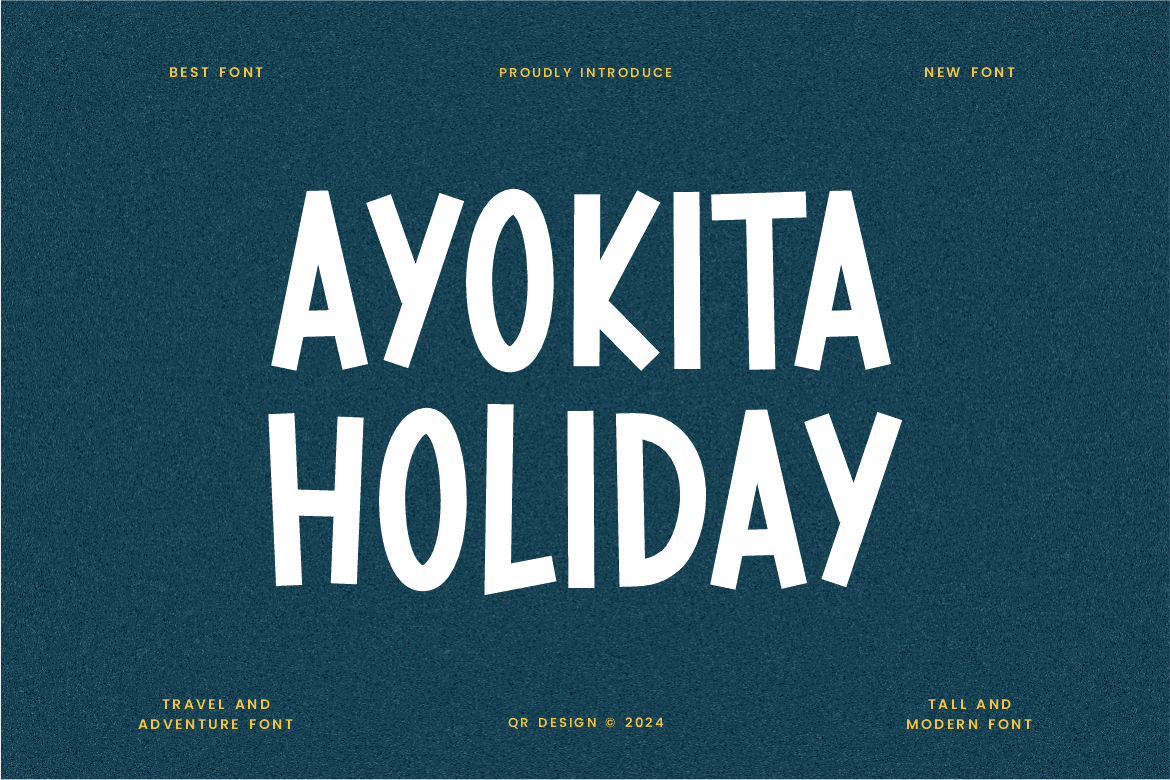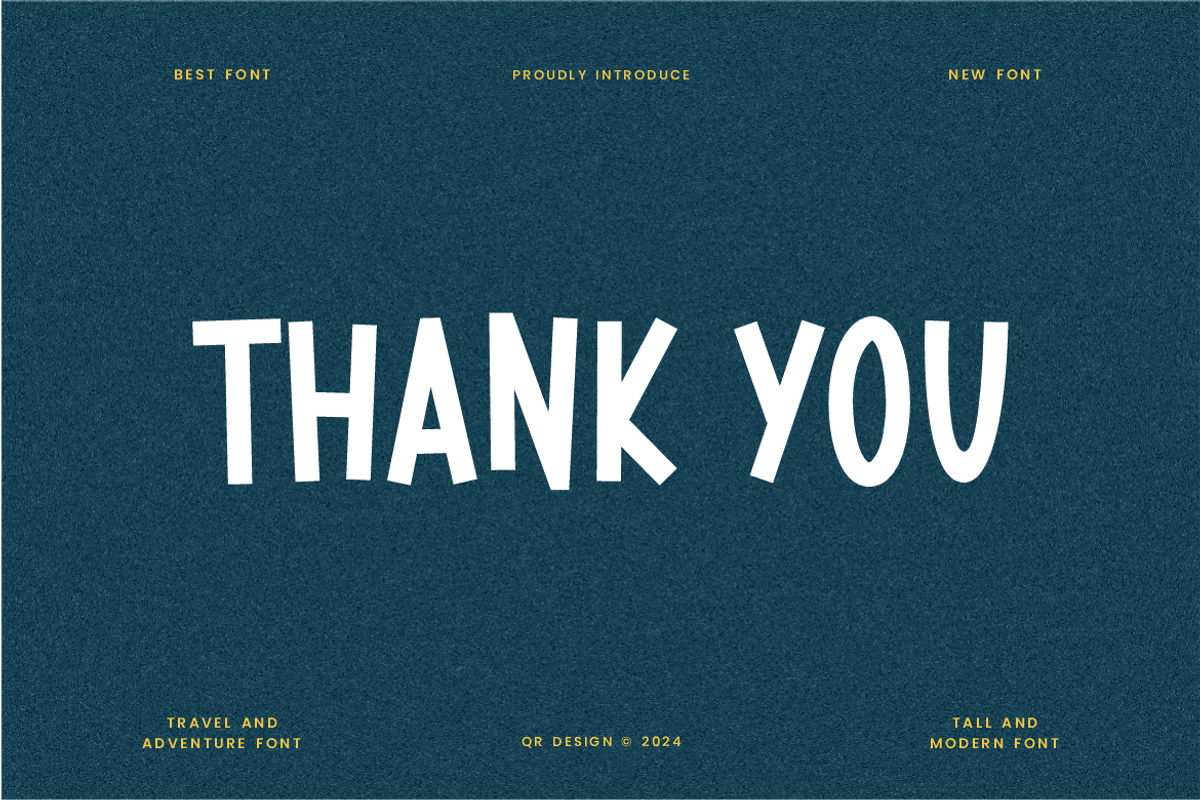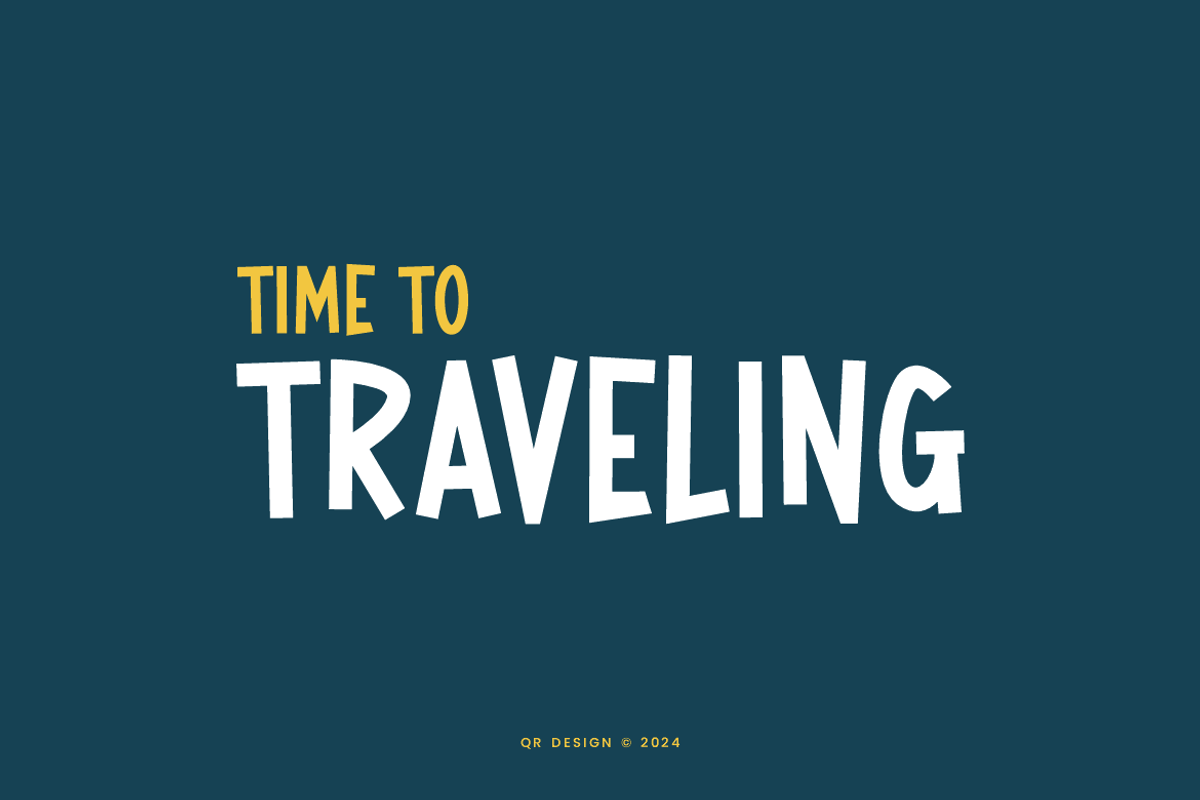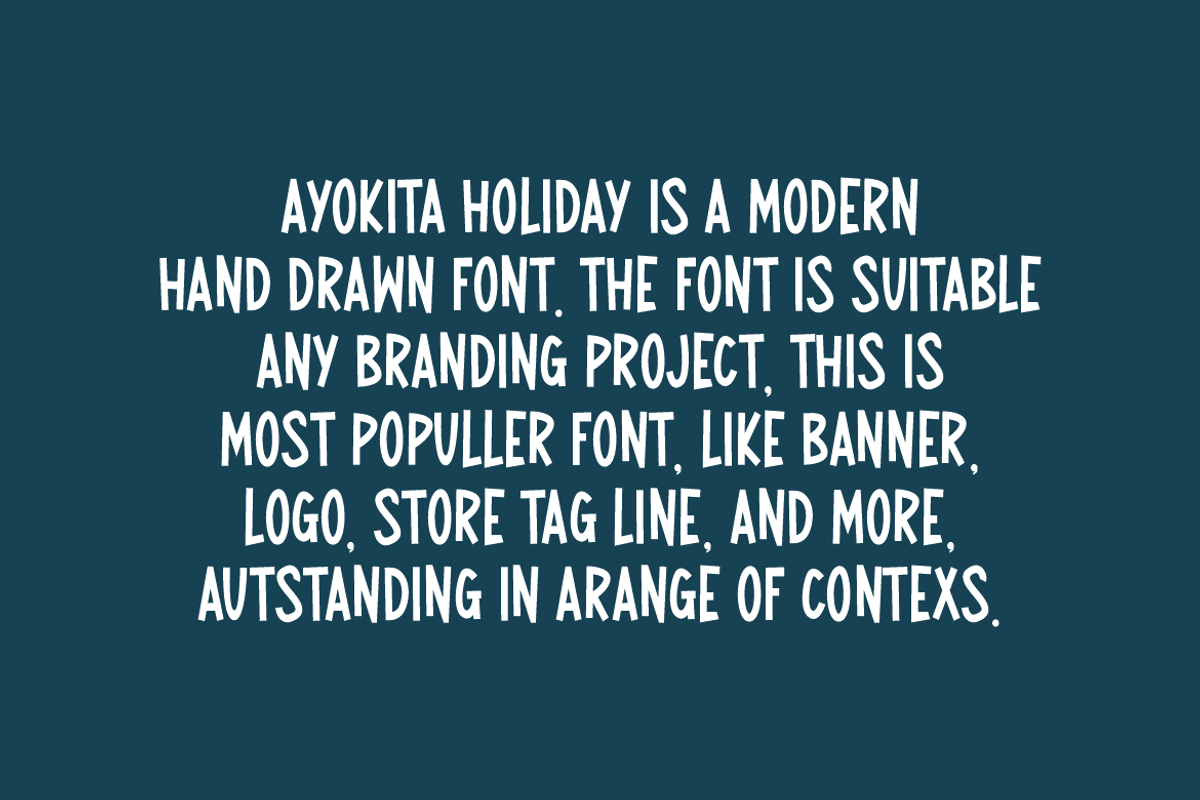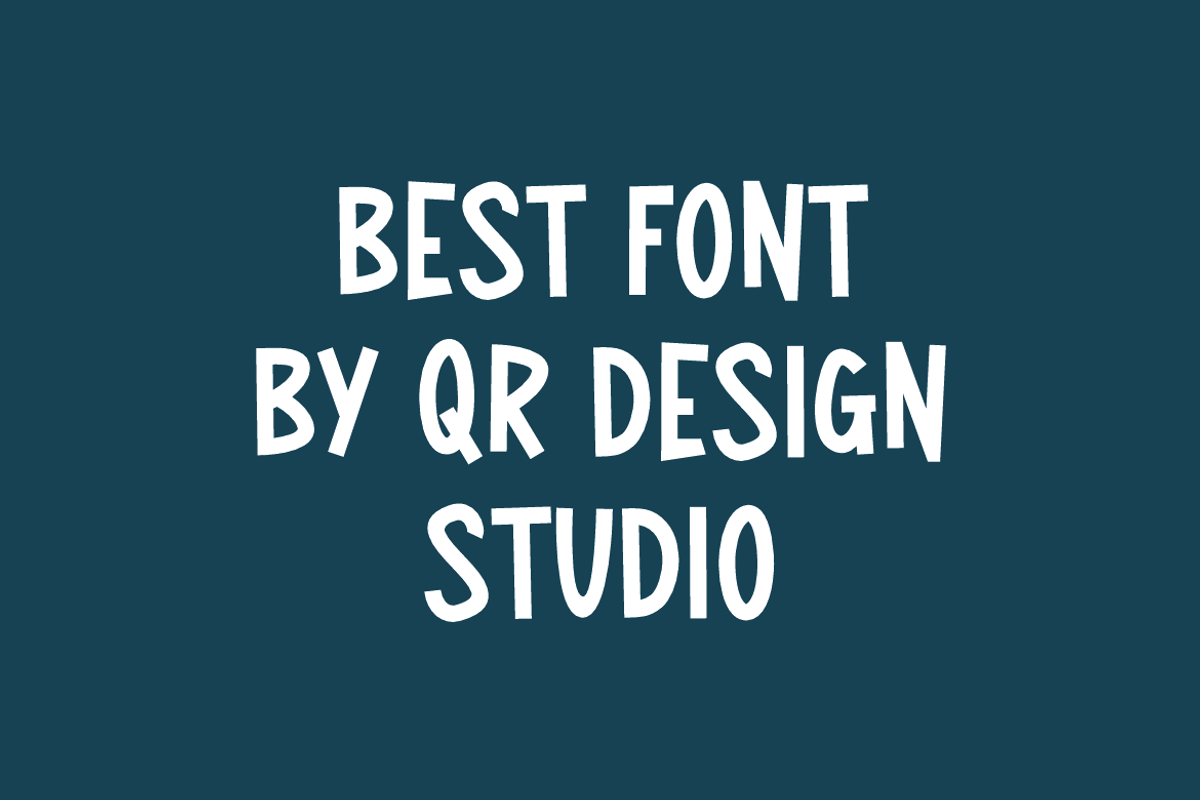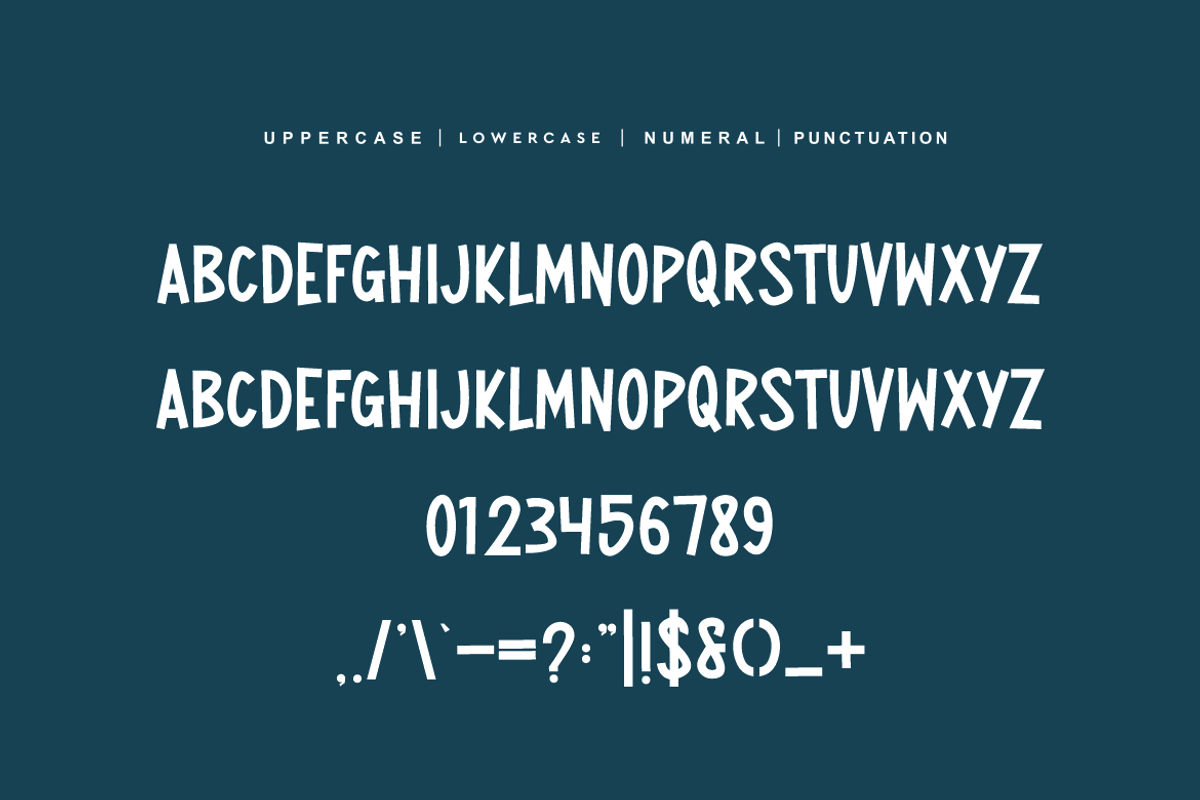
Ayokita Holiday - Adventure Font
Ayokita Holiday Font is a hand drawn and authentic display font. The font is suitable for any branding project like poster, logo, sport, and many more. Outstanding in a wide range of contexts.